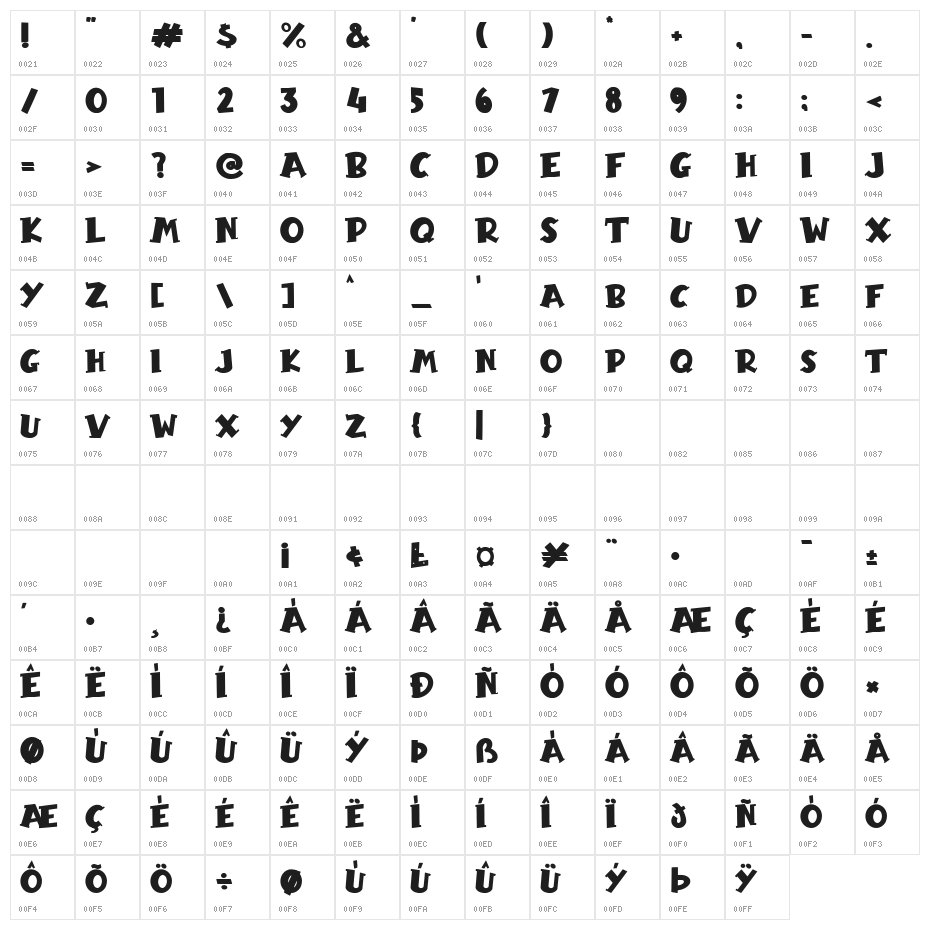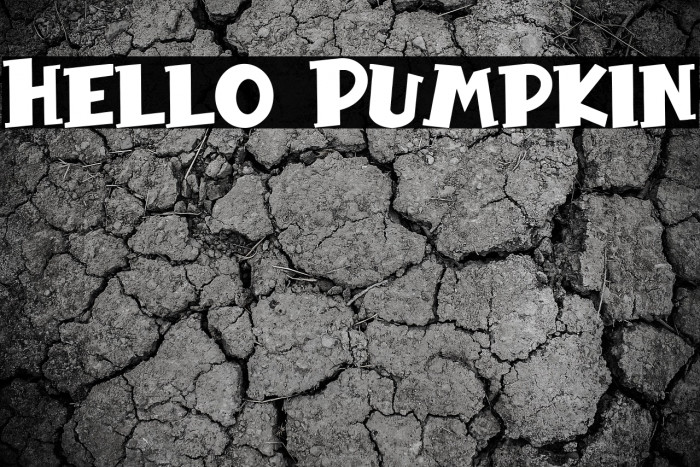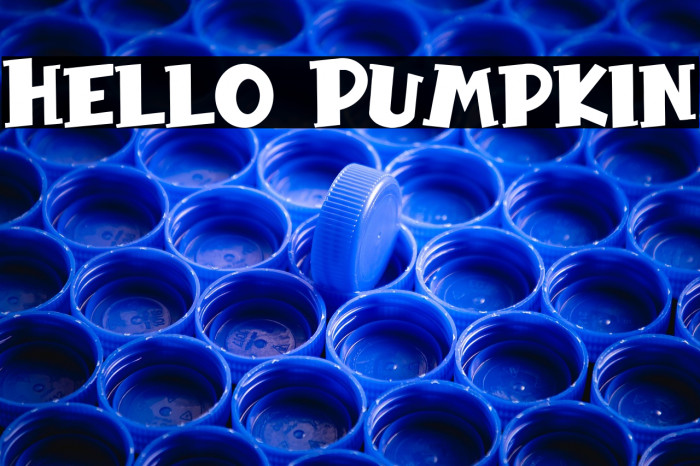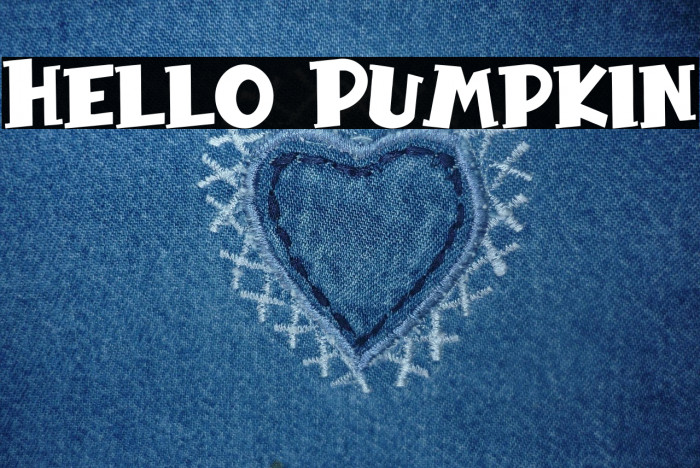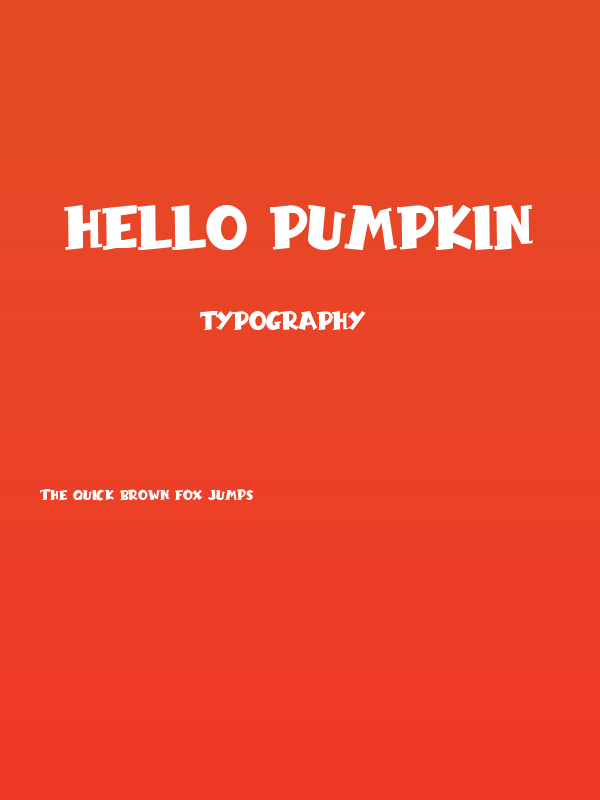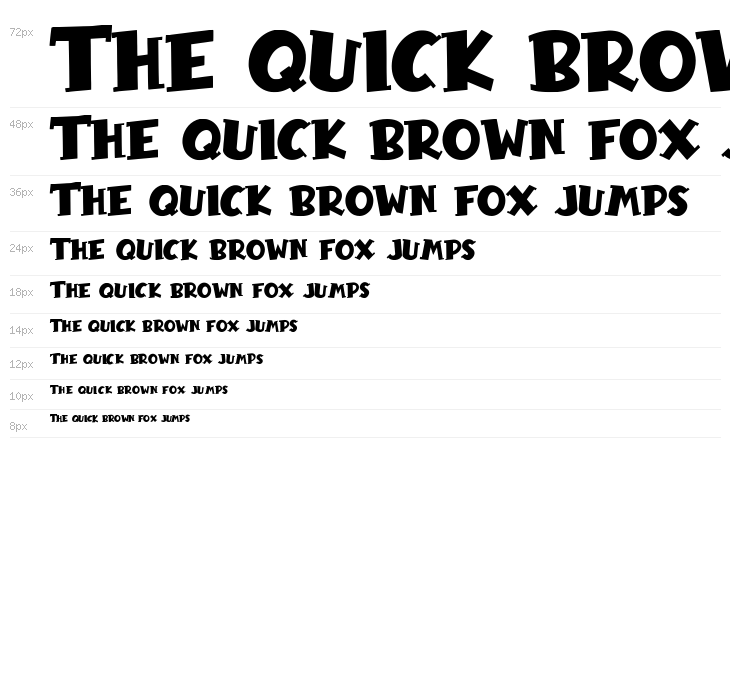
Hello Pumpkin Font
Hello Pumpkin Description
This font exudes a playful and whimsical charm, characterized by its bold and slightly irregular letterforms. The letters have a hand-drawn quality, with uneven edges and a dynamic flow that adds a sense of movement and energy. The uppercase and lowercase letters maintain a consistent style, with a slightly exaggerated thickness that enhances their visibility. The numbers and special characters follow the same playful aesthetic, making them ideal for creative and informal designs. The overall appearance is both approachable and fun, making it suitable for a variety of lighthearted applications.
| Overall Style | Playful |
| Proposed Projects | Ideal for children's books, party invitations, playful branding, and casual posters. |